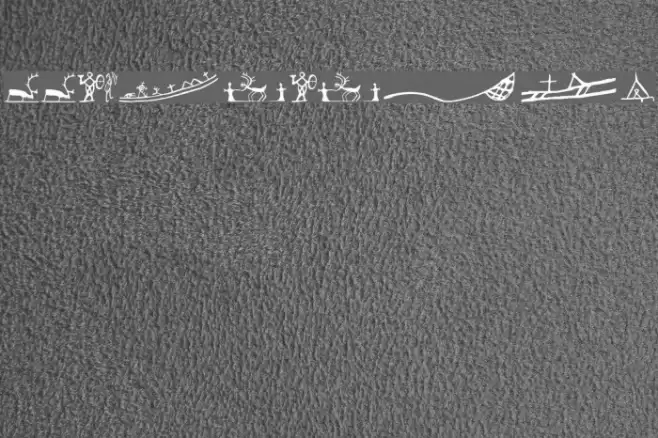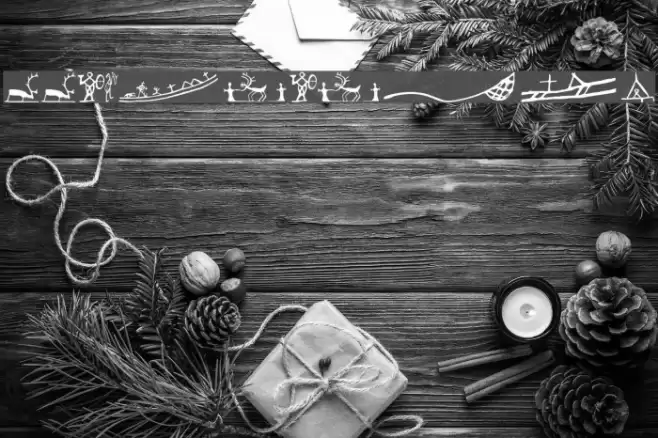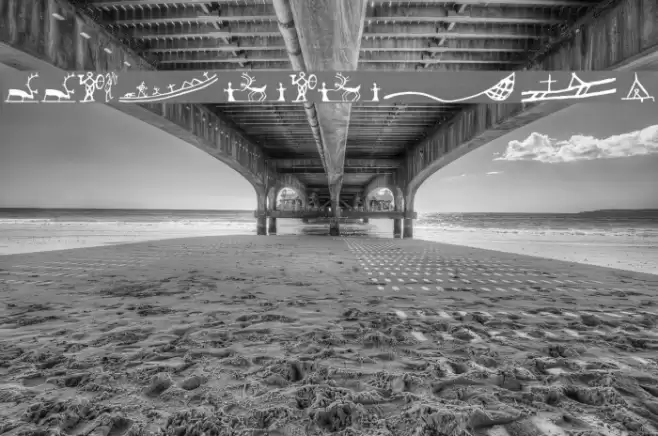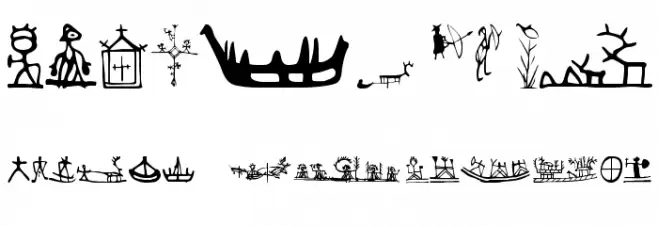
LLSamiSigns Font
LLSamiSigns Description
A highly decorative font composed of pictographic symbols inspired by ancient Sami petroglyphs, featuring animals, humans, and nature motifs with irregular, hand-drawn strokes and varying line thicknesses.
Pictographic, petroglyph-inspired font with hand-drawn symbols from Uncategorized fonts.
- Proposed Projects: Cultural exhibitions, educational materials, themed posters, art projects, historical displays.
- Overall Style: Decorative, Primitive, Ethnic
- Use Case: Logos, Posters, Artworks, Educational graphics